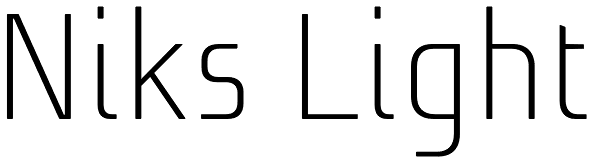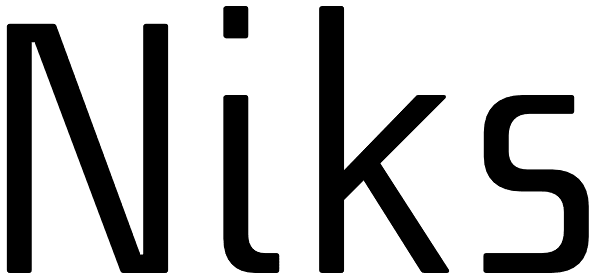
Niks
Niks is the first sans serif created by dooType. It has 4 weights with corresponding italics. The character set supports more than 30 languages and some Opentype Features.